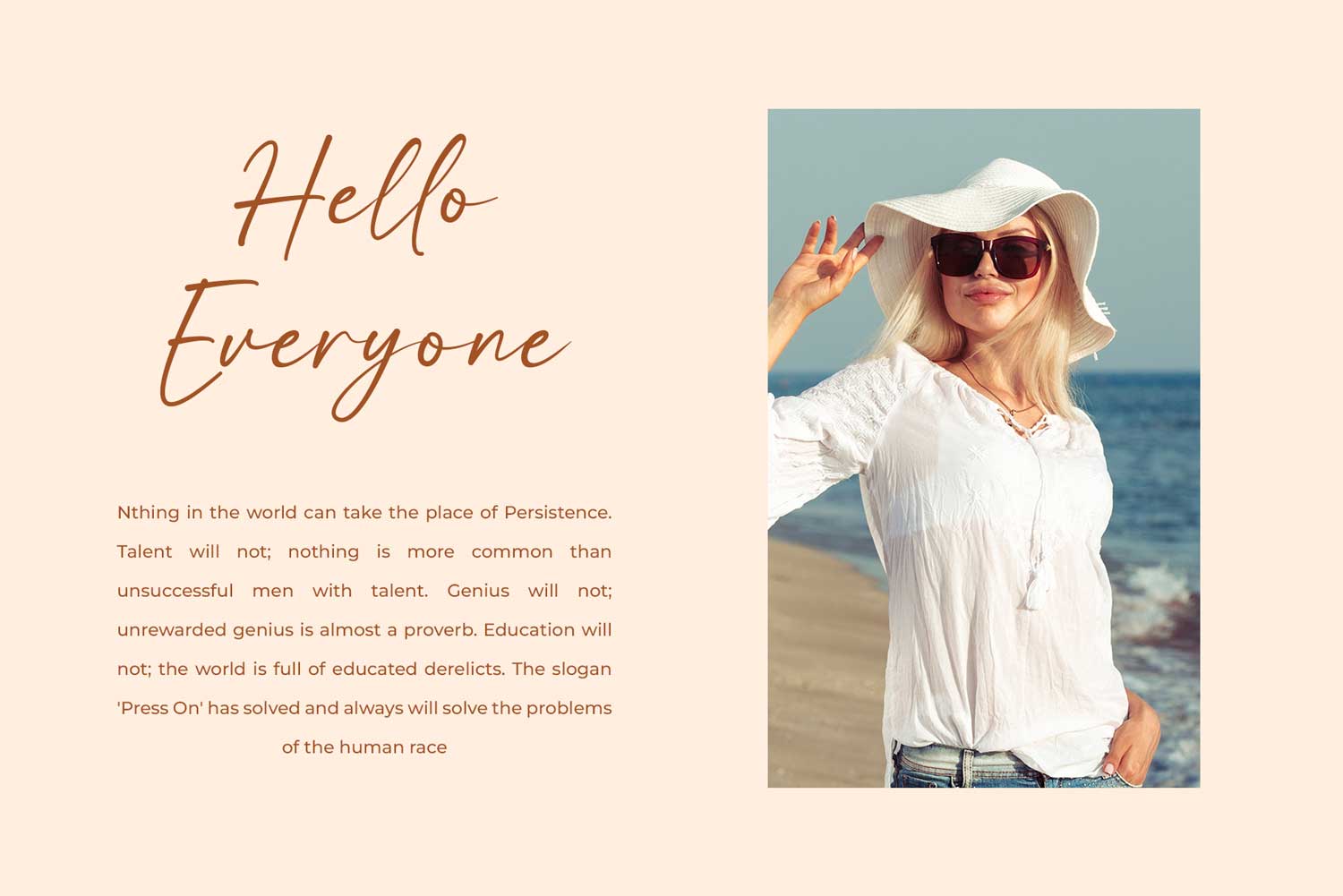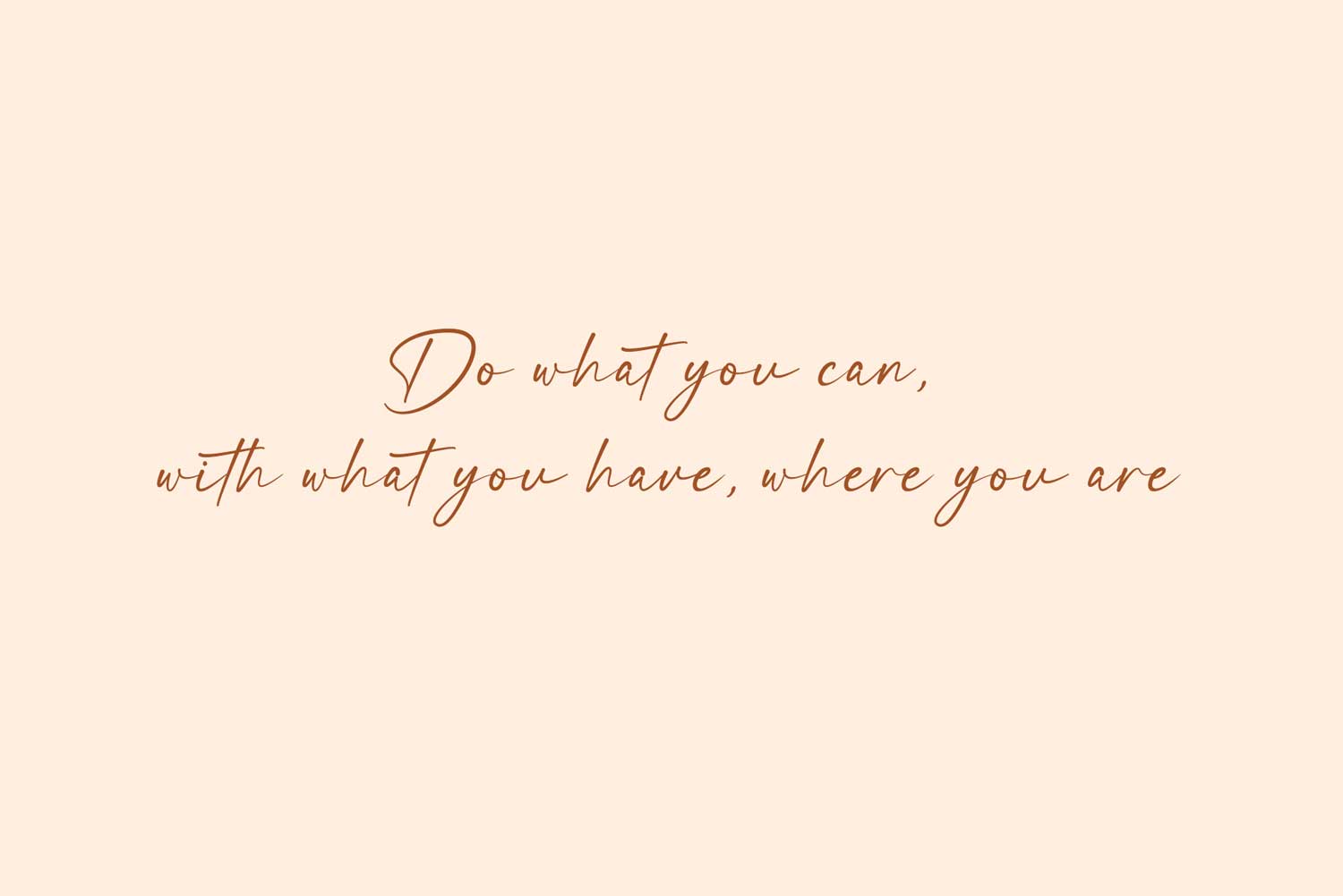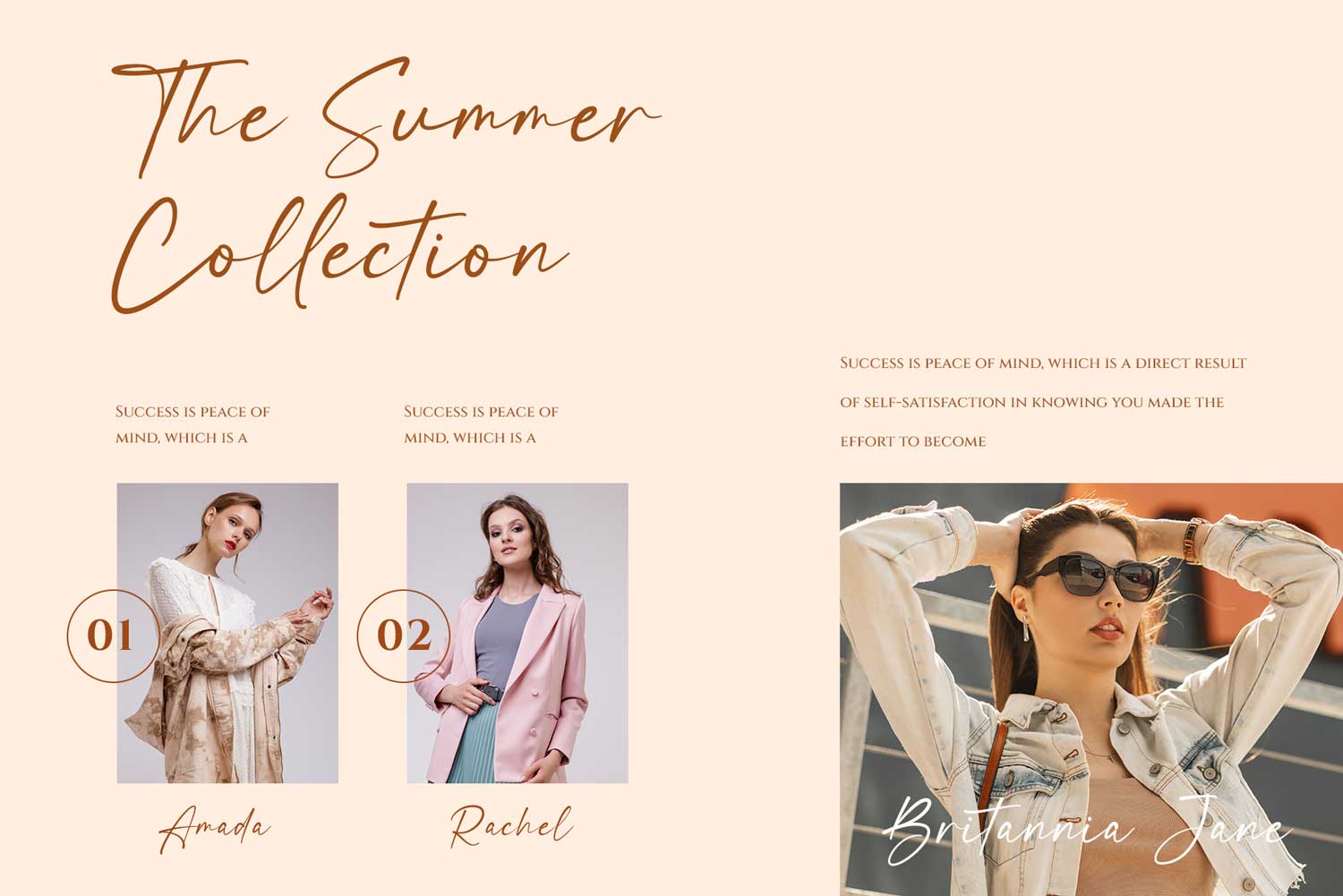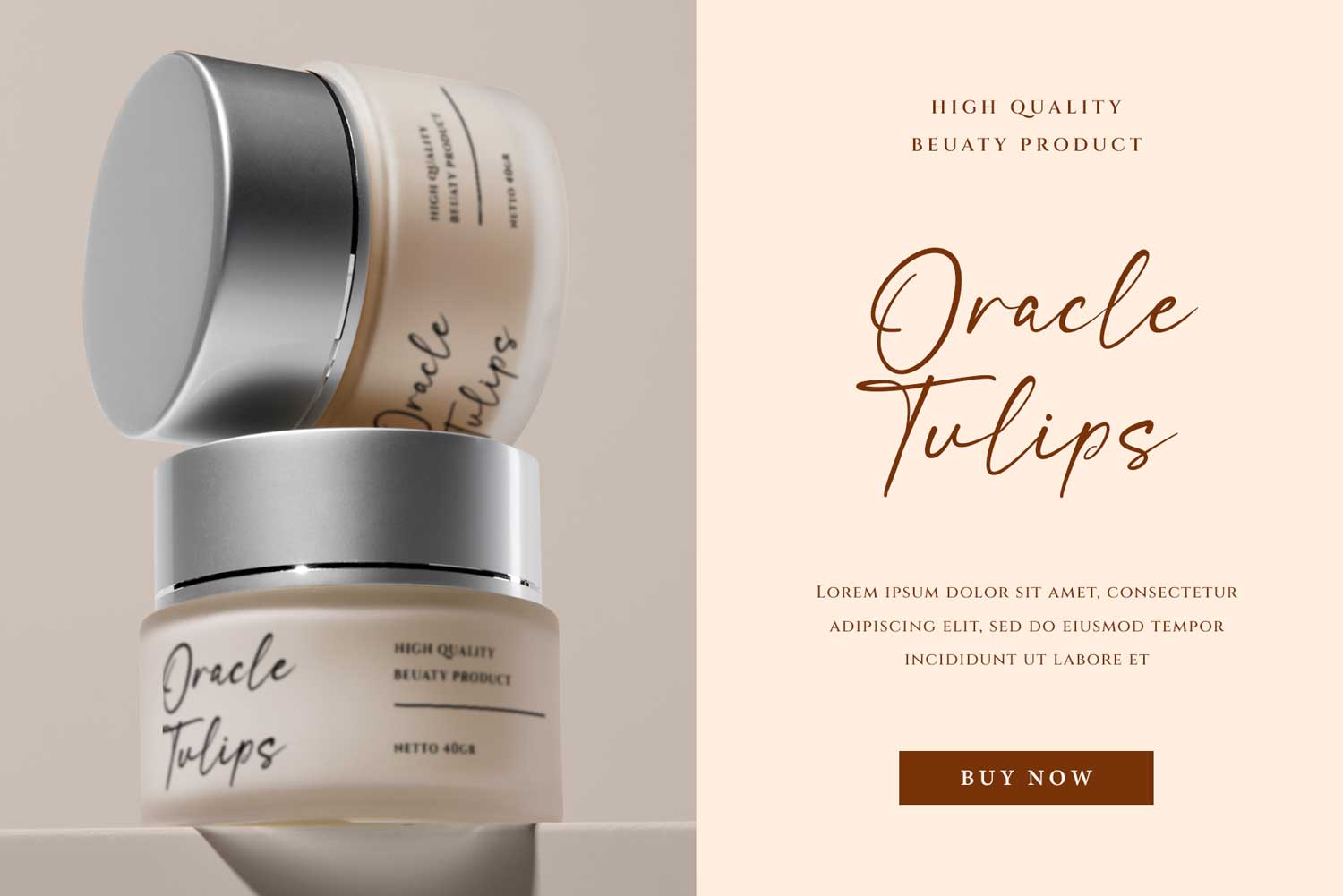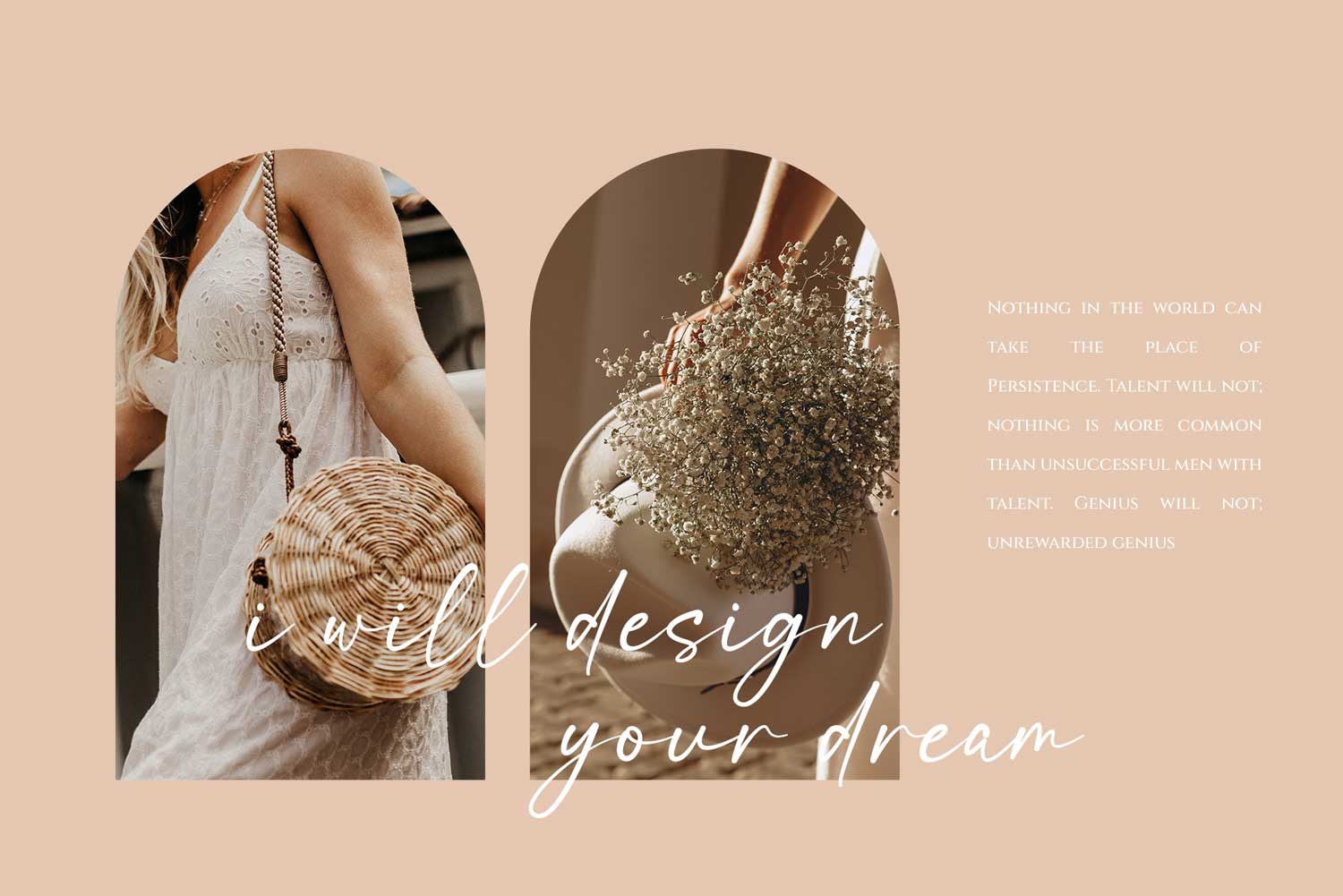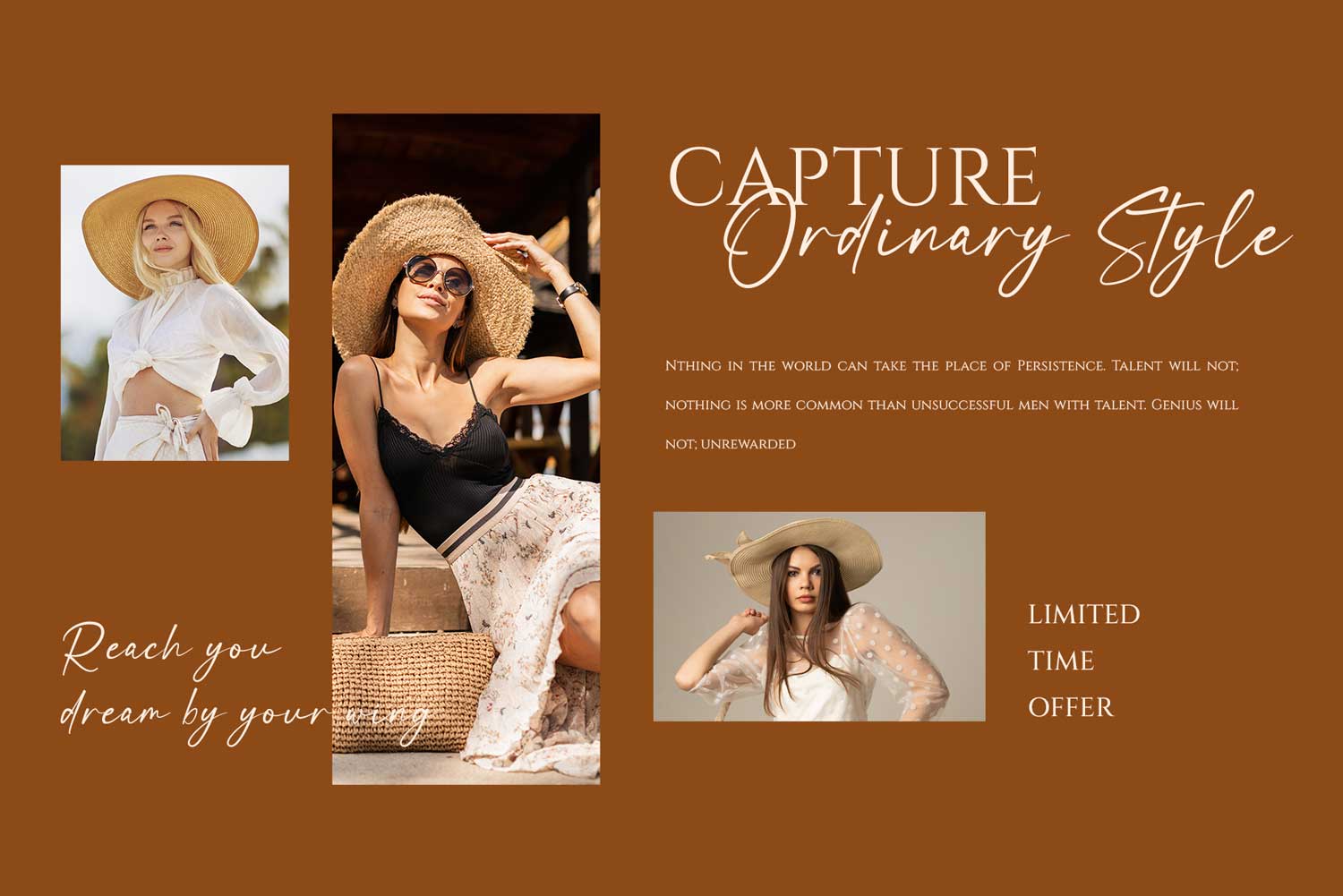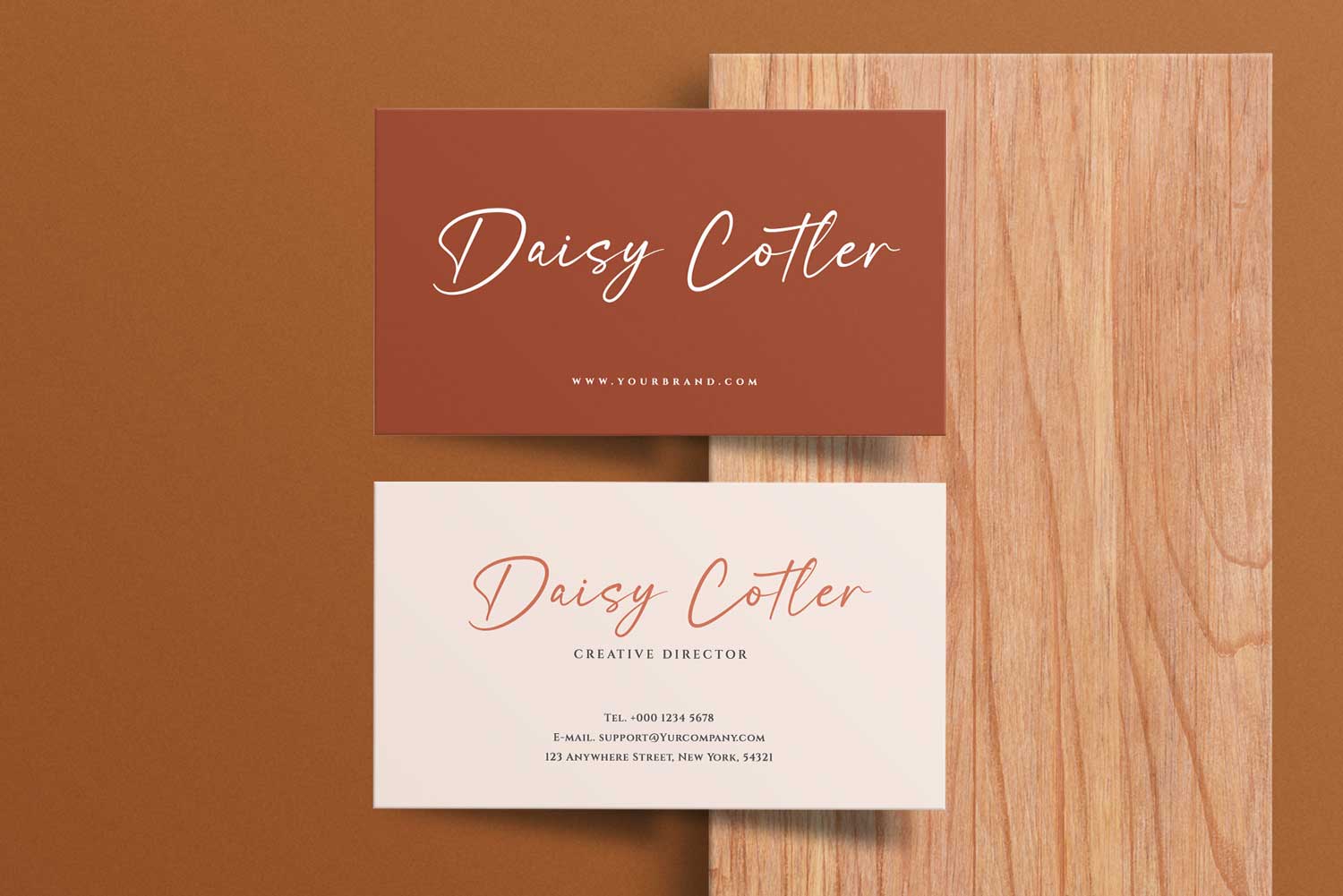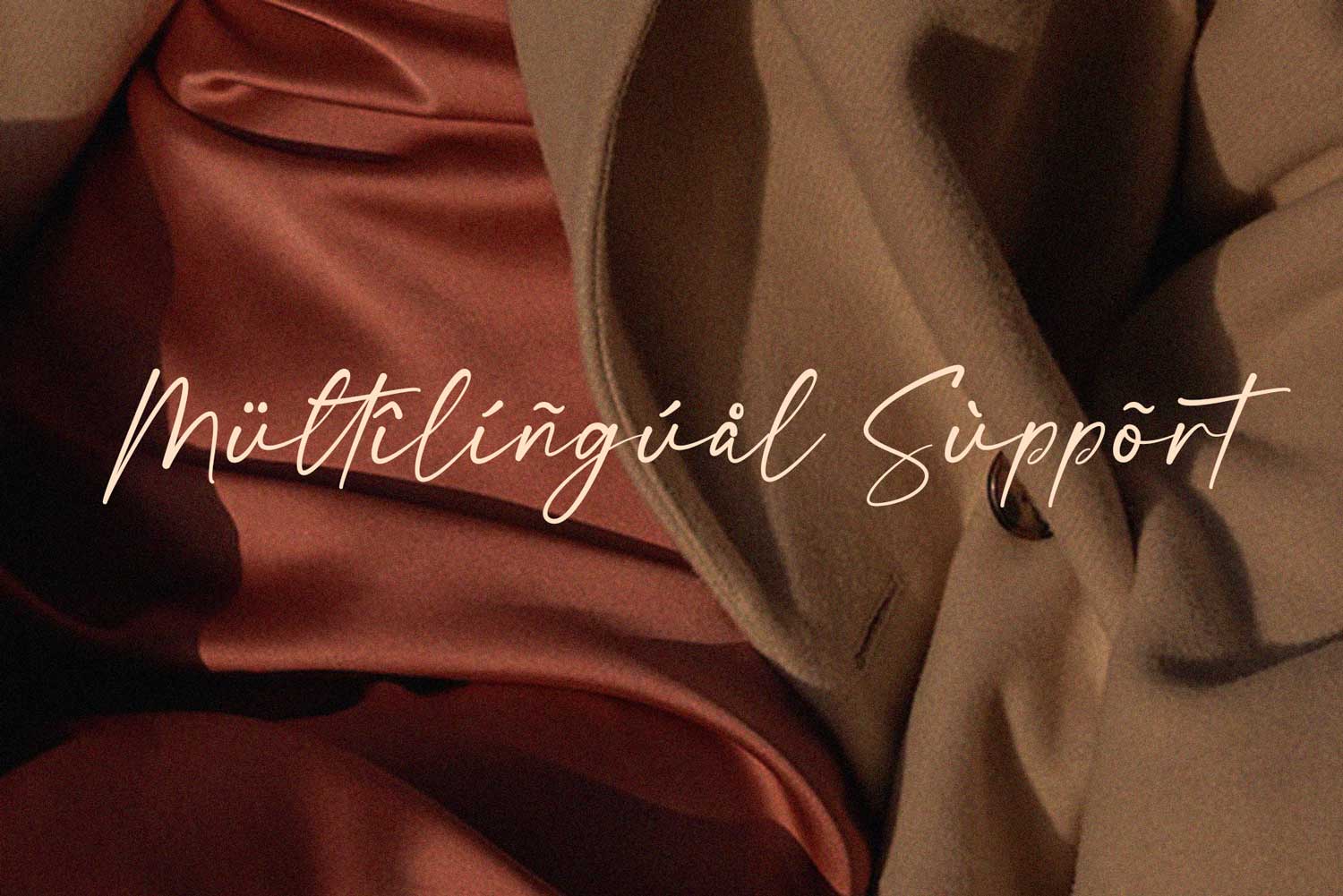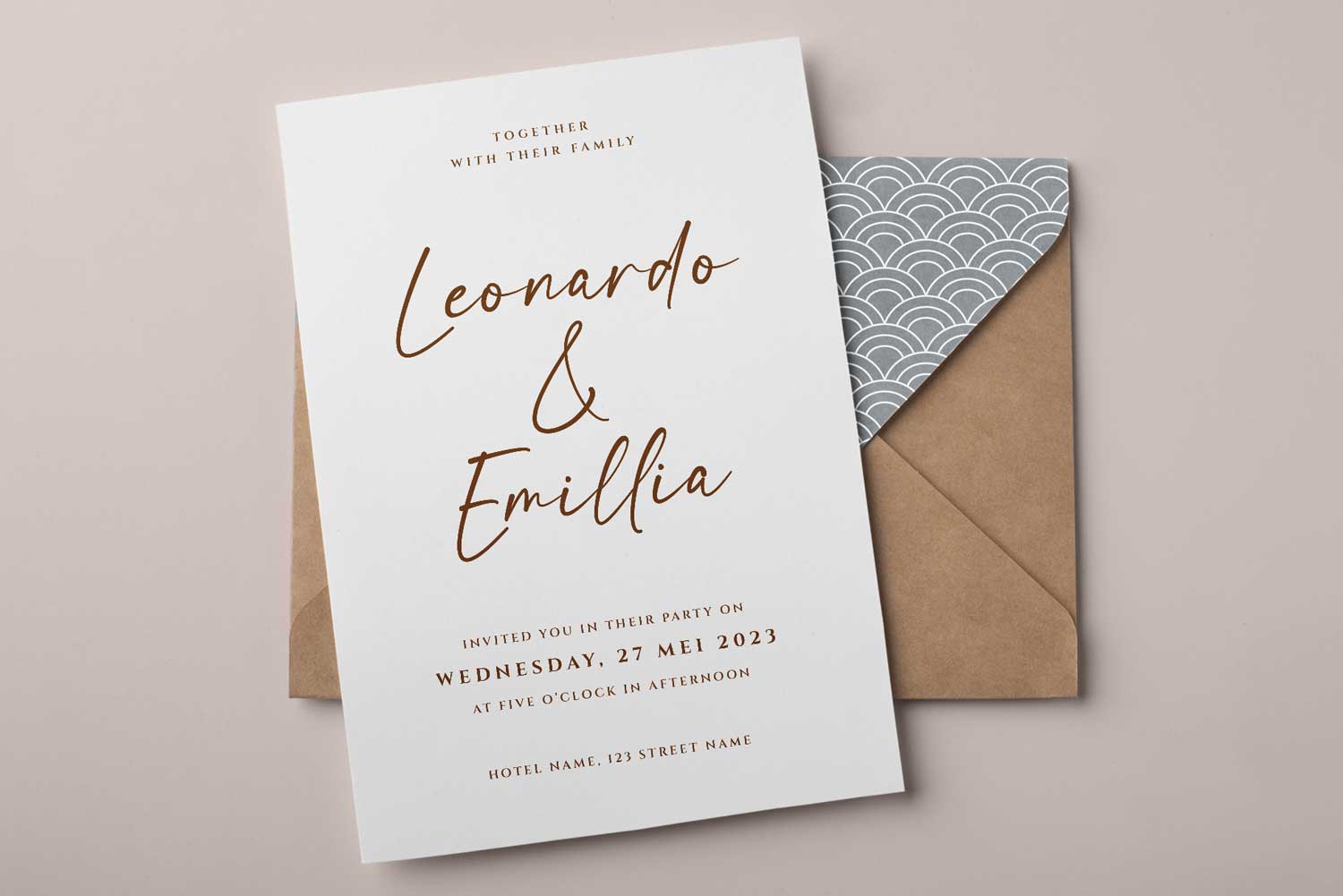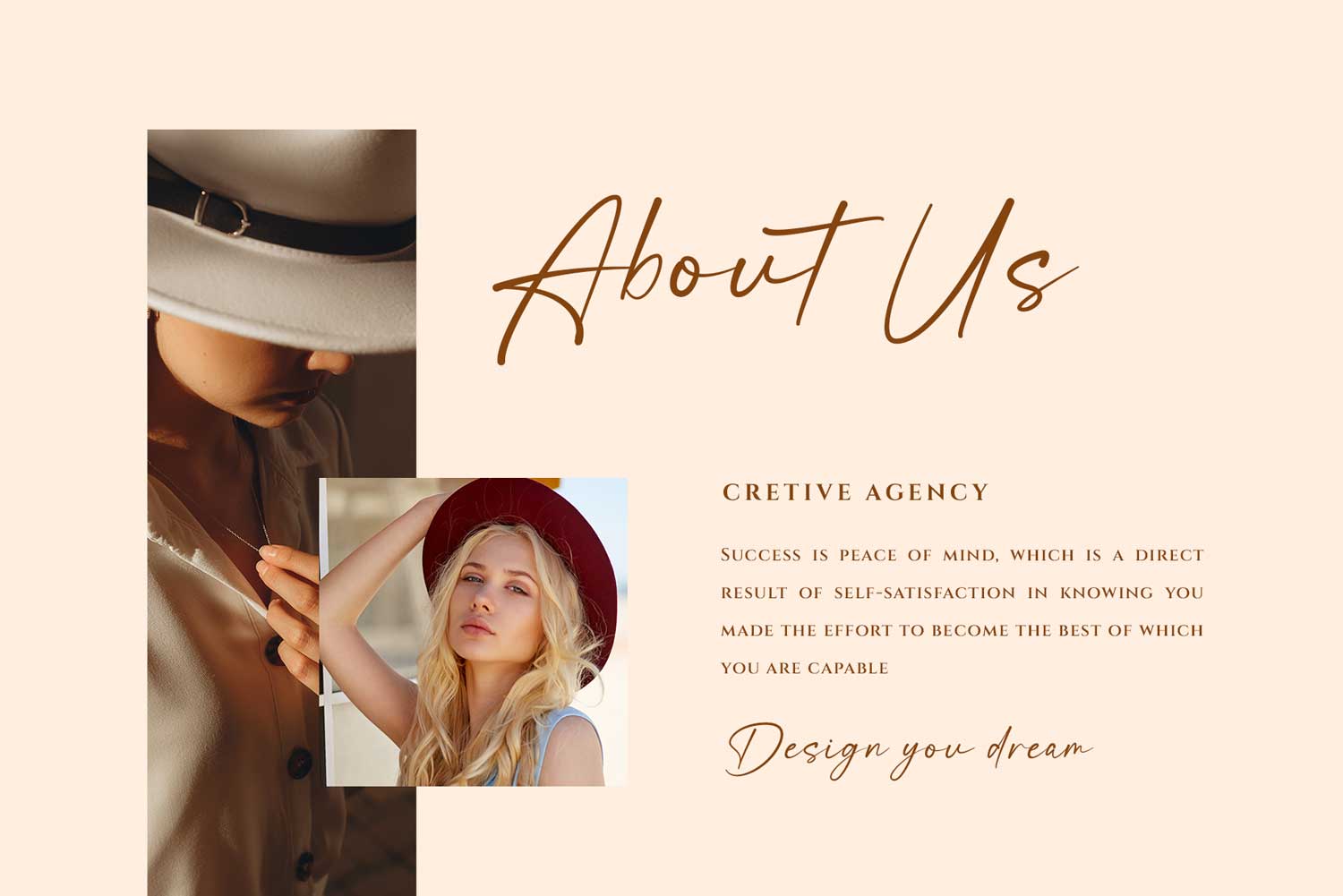
Modern Britania Stylish Signature Font
This font is modern style every curve is my personal touch, which can be interpreted professional. We keep this font looks elegant, luxury, premium, modern, readable, stylish, feminine, girly, catchy and easy to use.
Modern Britania is the great choice for watermark on photography, signature or signature logo design, quotes, album cover, magazine, business card and many other design project. Modern Britania here to make your work to high level!!!
• Ligature and Alternate